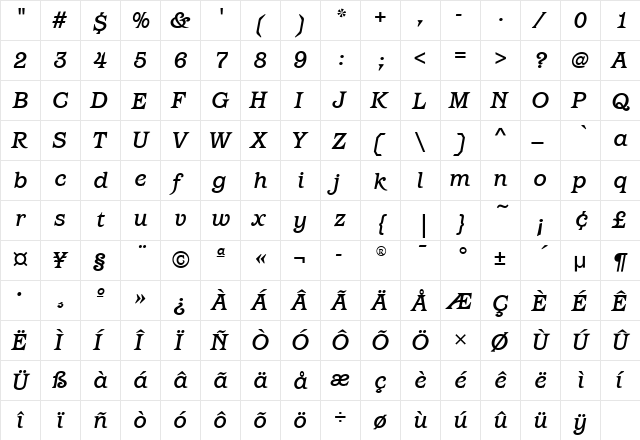
BarcelonaMdITC Italic Font Preview
BarcelonaMdITC Italic
BarcelonaMdITC Italic Font Details
| Foundry | E+F Designstudio. ITC Barcelona is a registered trademark of International Typeface Corporation |
Design Context for BarcelonaMdITC Typeface
BarcelonaMdITC takes a measured approach to typography — its balanced proportions and neutral character make it a reliable workhorse for both digital and print work. Its italic angle brings a sense of urgency and motion to the letterforms.